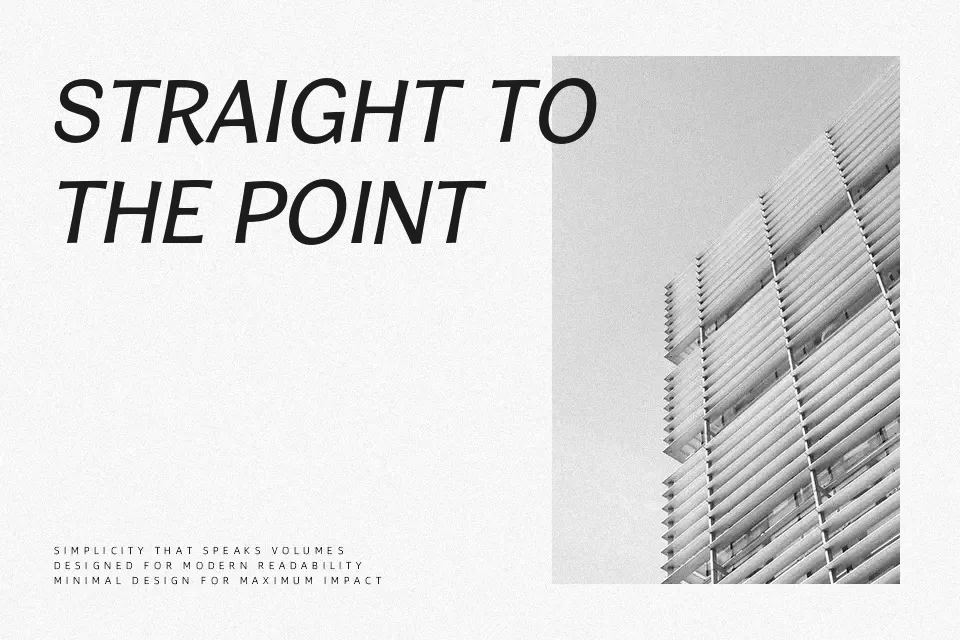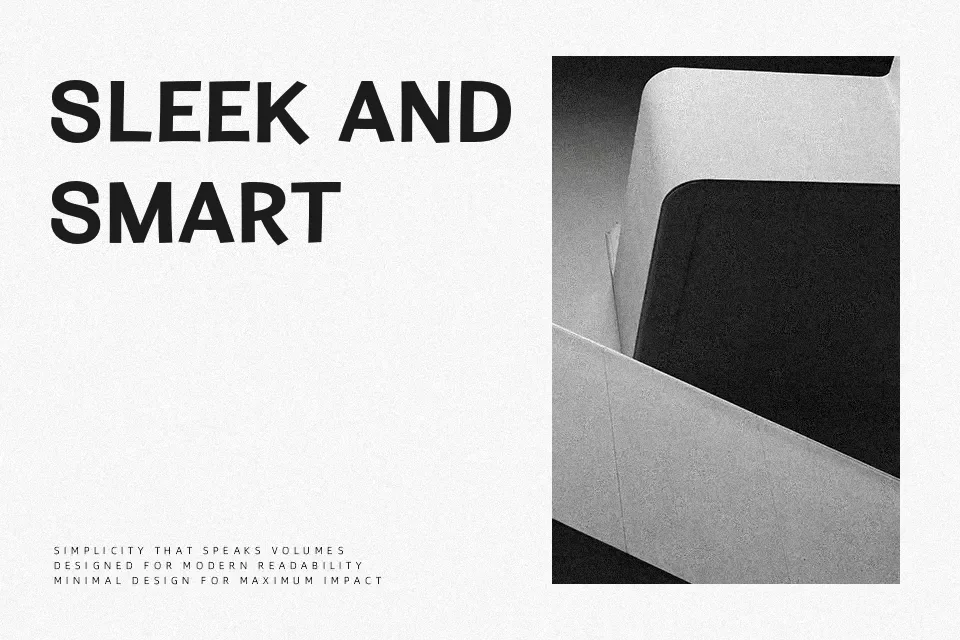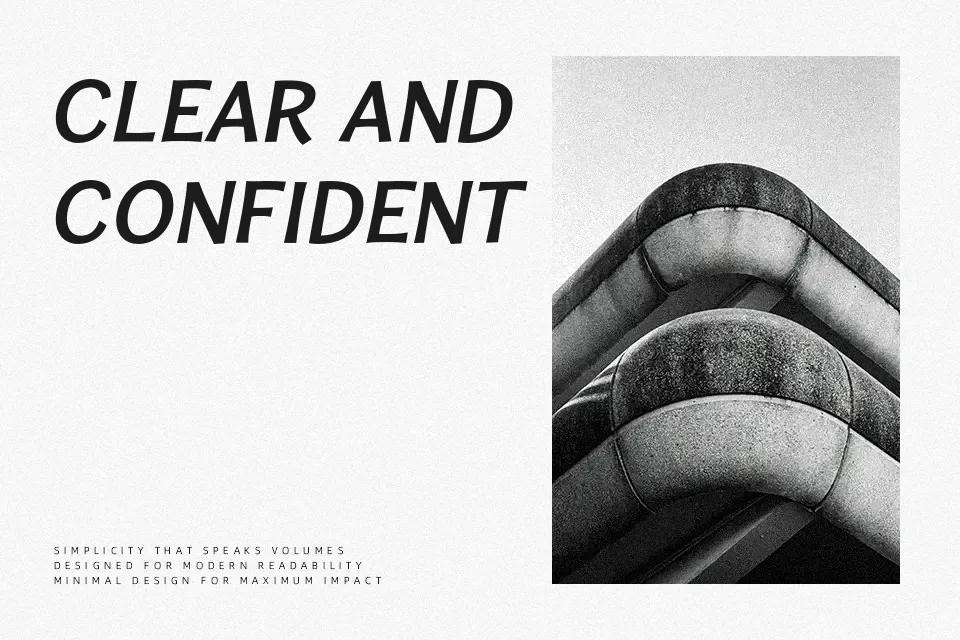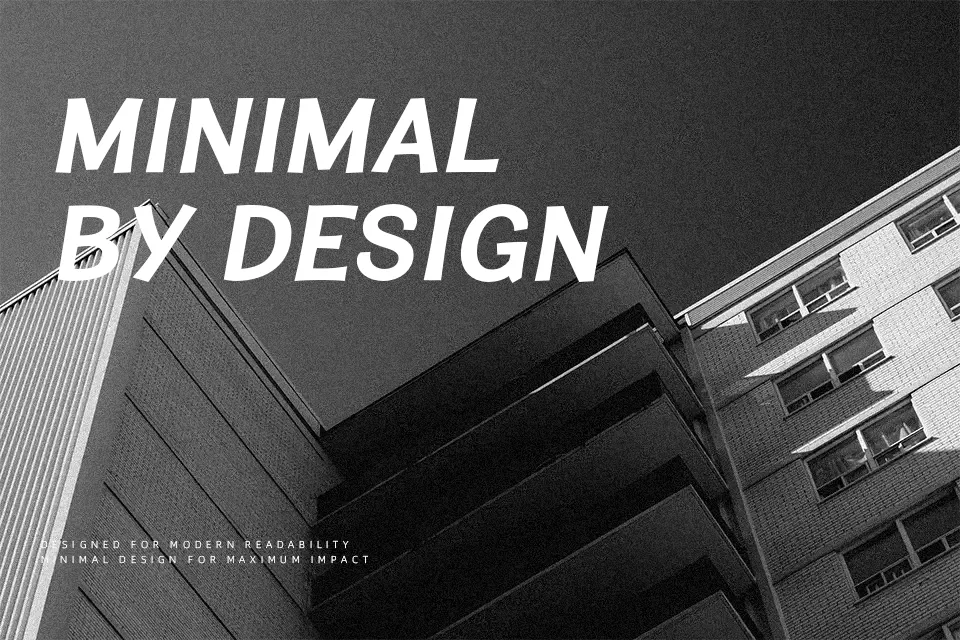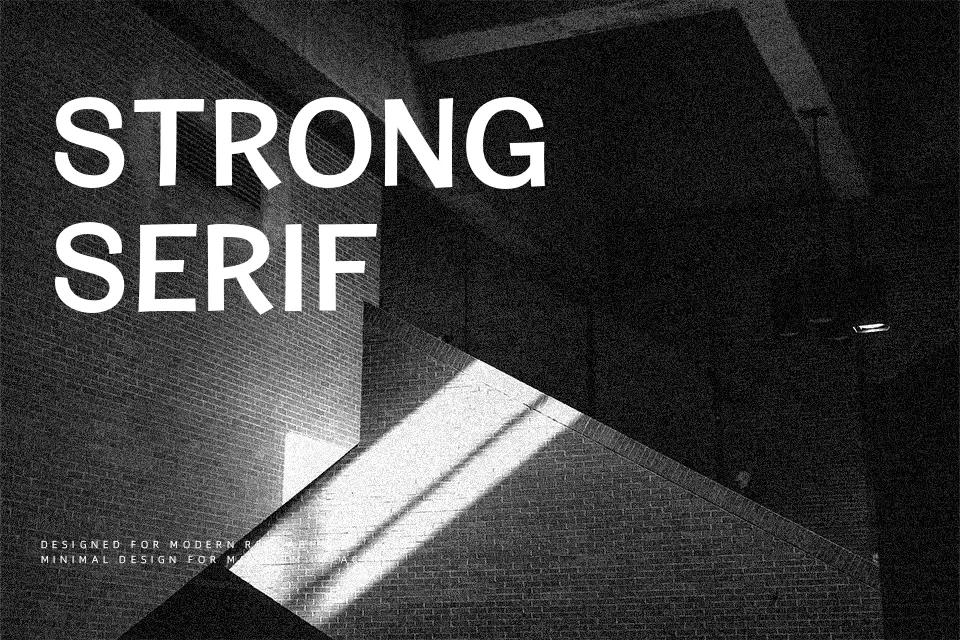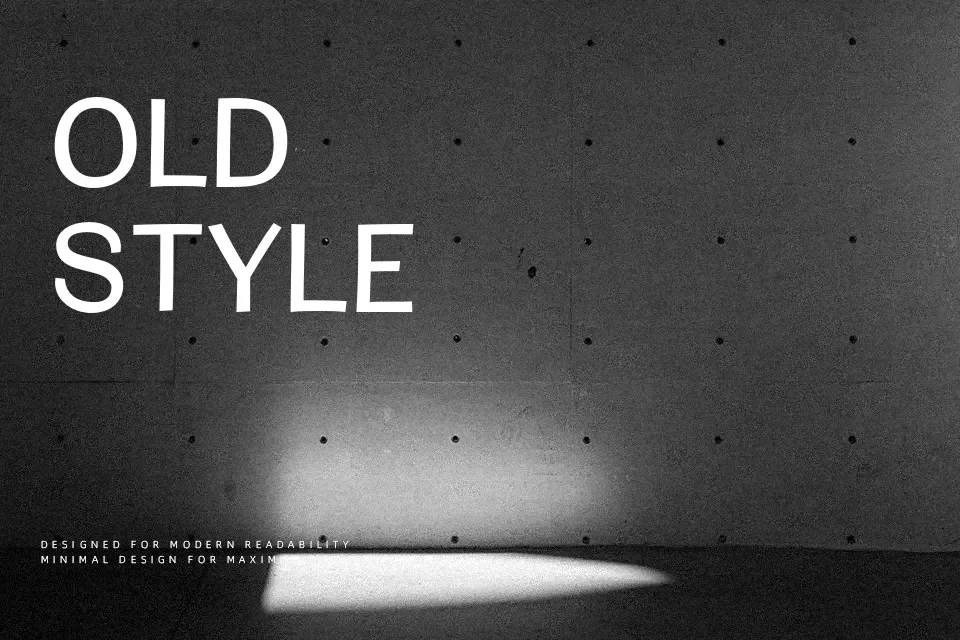
Cardigan Titling Font
Cardigan Titling Font features clean, uppercase letterforms characterized by subtle corner softening, consistent stroke widths, and generous internal counters. The balanced horizontal spacing and sturdy vertical stems establish an orderly visual rhythm that supports swift recognition across large signage and editorial headers. In display applications such as restaurant menus, apparel branding, and book jackets, the typeface conveys approachable warmth while retaining crisp edge definition. However, because the design is strictly an all-caps titling set with tight vertical metrics, continuous body text becomes tiring to parse. The deliberate structural uniformity keeps headlines legible from a distance.
Best For: lifestyle product packaging, editorial headline banners, restaurant menu titles, apparel graphics
Not Ideal For: continuous paragraph reading, dense technical tables, legal documentation, compact mobile body text
Perfect for branding, editorial, and headline, with a clean and display style.